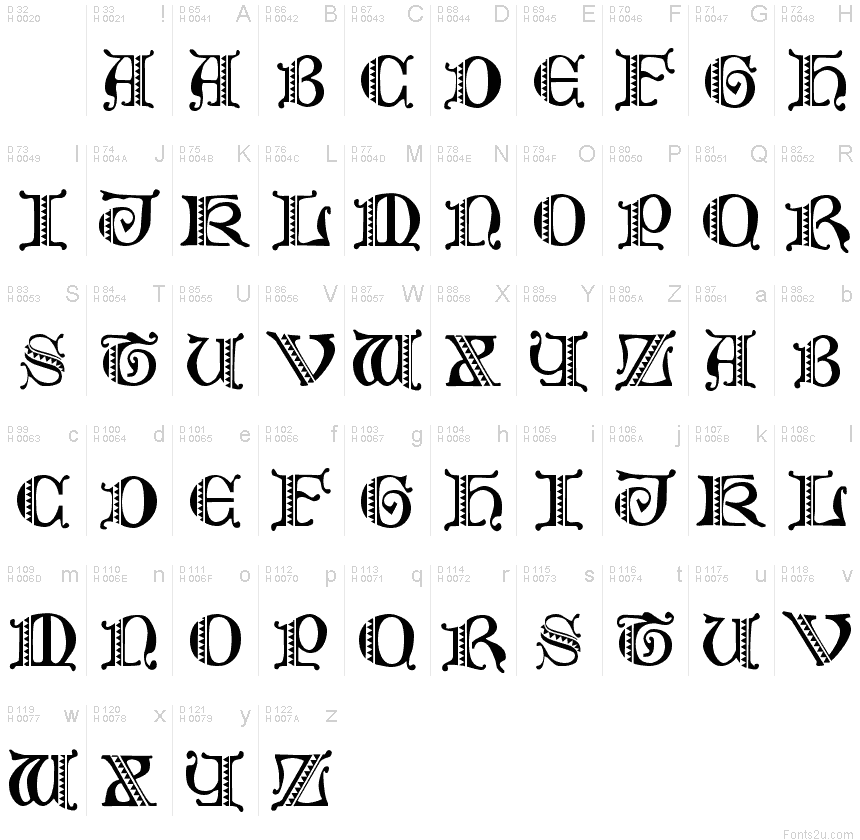
Folks PS
Folks PS font by Exclamat!ons is a free decorative retro typeface that bursts with bold, folk-art patterning. Each letter feels hand-cut and inky, with zigzag stripes, chunky vertical bands, and curving strokes that dance between rigid and playful. It has a tactile, poster-press energy that instantly turns a single word into a graphic illustration.
Using Folks PS, short headlines and monograms snap to attention on festival posters, cultural event branding, vintage-style packaging, album art, or book covers. This free font shines when used big and generously spaced, letting the intricate black shapes breathe. For supporting text, pair it with a clean geometric sans to keep layouts readable while Folks PS supplies the drama.